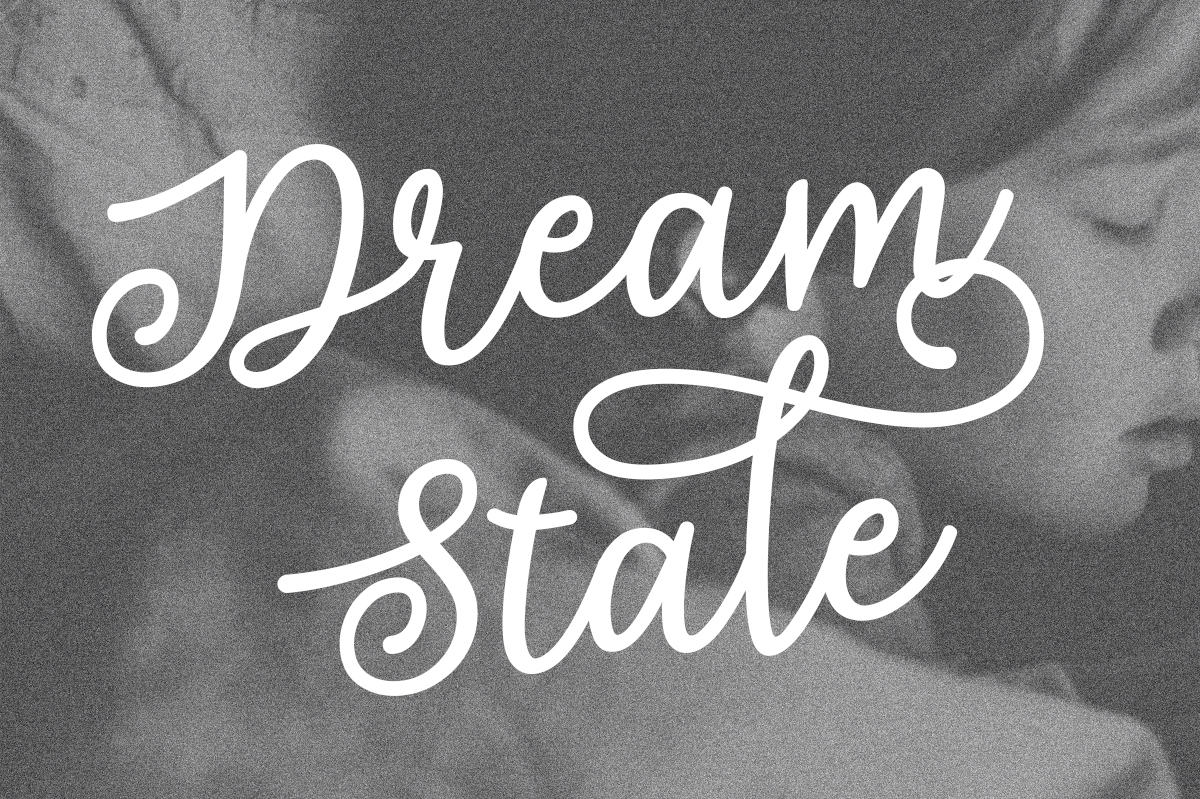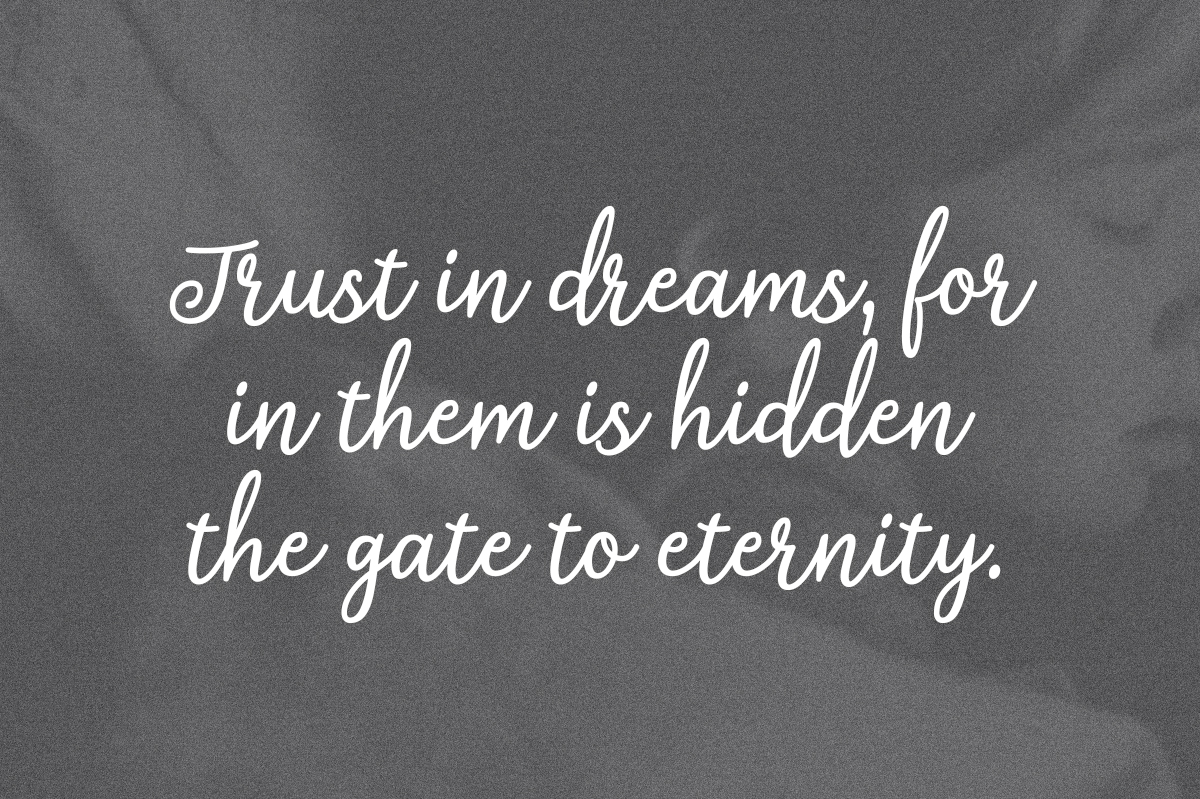
Script Fonts Dream State Font 0 163 FacebookTwitterPinterestWhatsApp Dream State Font Poster 2 About Dream State Font Dream State is a stunning script font that has a dreamy quality. This beautiful handwritten calligraphy styled font is a great font for use in nostalgic and modern designs. DOWNLOAD NOW